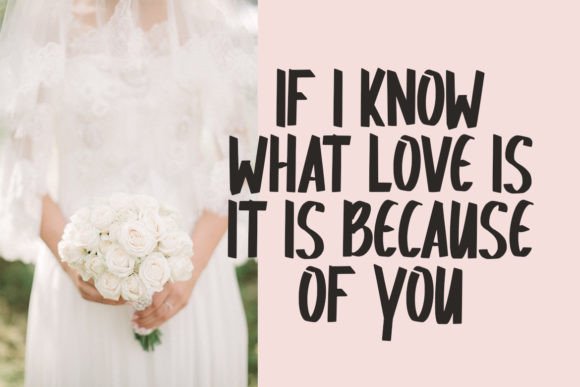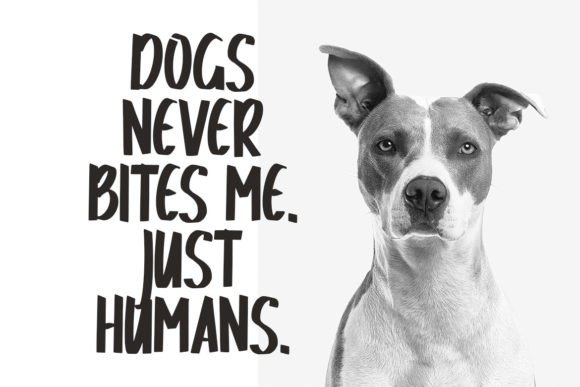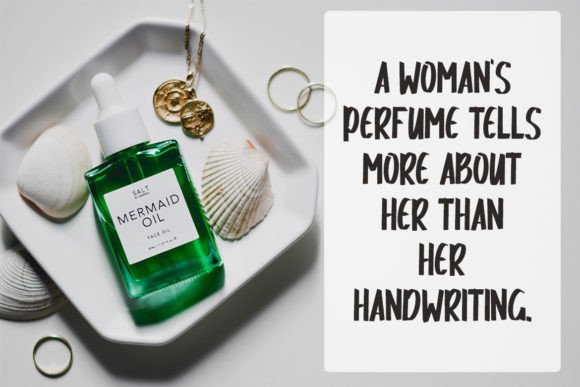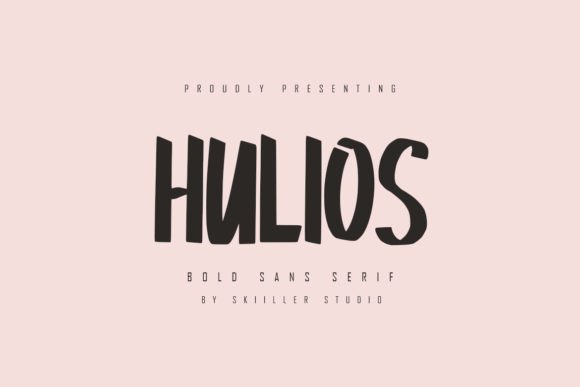
Introduction to Hulios Font
Hulios is a natural display handwritten font with an regular base line.
Suitable for use in title design Such as clothing, covers, book titles, films, quotes, branding, logos, greeting cards, t-shirts, packaging designs, posters, and others.